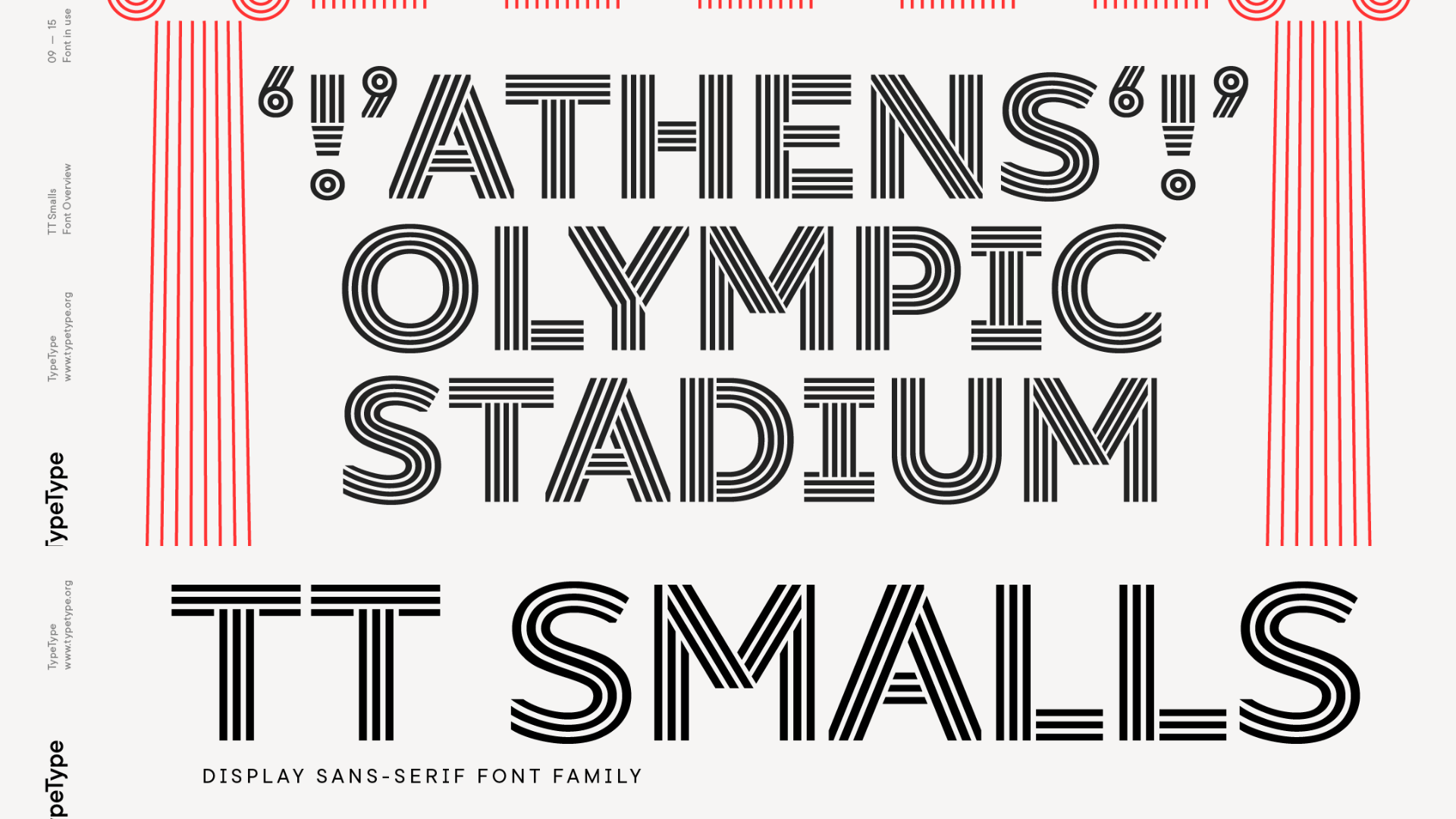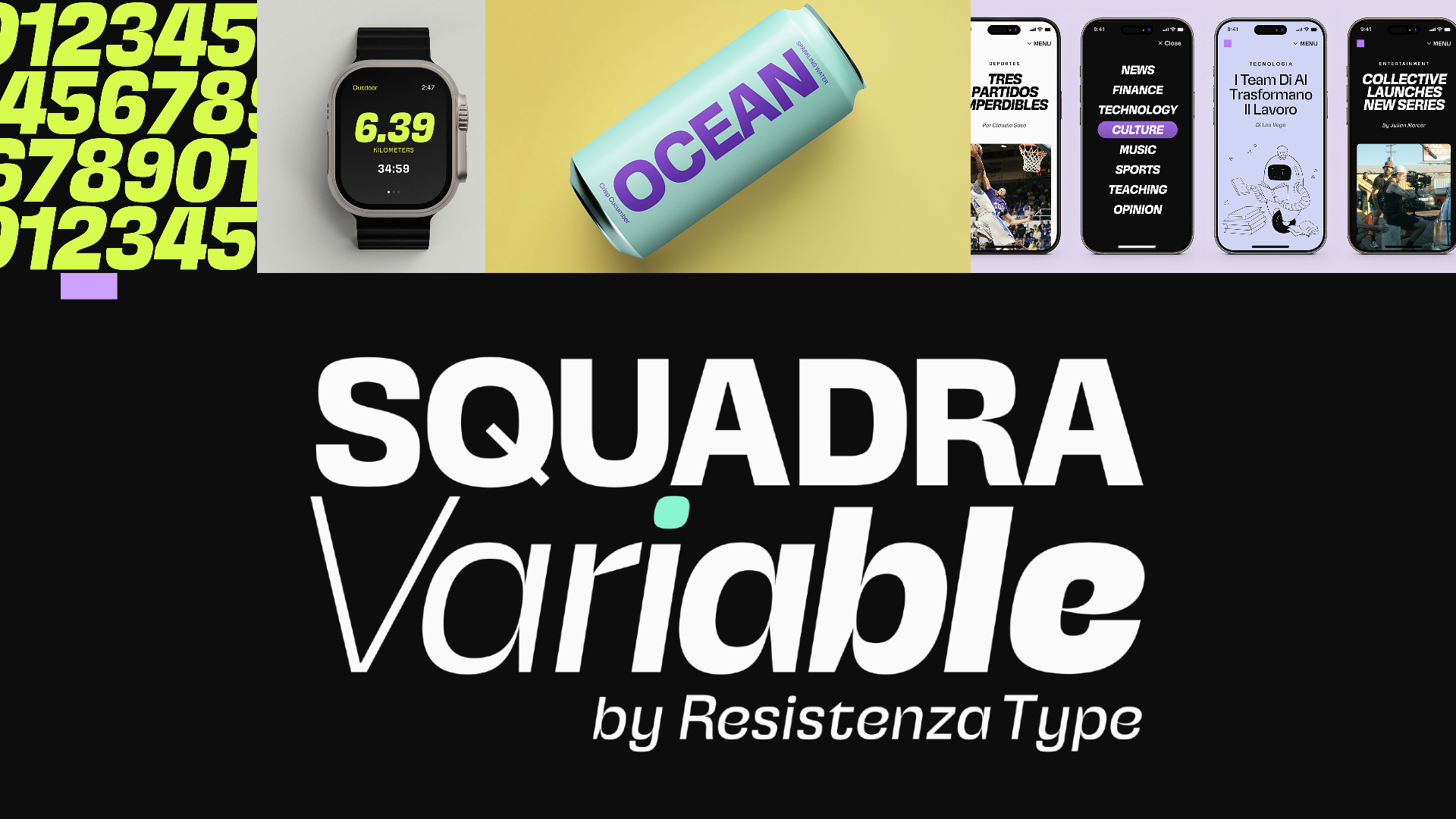
TT Smalls is now a decorative font that makes it easy to attract attention. Use it to design expressive headings, in the packaging design or to highlight text on a site. Be sure that the text set in TT Smalls will arouse the interest of the audience. Once TT Smalls was a neutral geometric sans serif, and the inline version was an alternative stylistic set. However, the TypeType collection of universal fonts is extensive, so we focused on creating a unique and expressive font and released an updated TT Smalls. The font contains only uppercase characters in the inline version, and glyph designs are based on a geometric sans serif. With an increase or decrease in weight, the number of strokes in the font goes up or down, respectively. 12 fonts for $99 $69.30 | |
Squadra Variable is a contemporary sans-serif typeface available as a single, flexible variable font. Inspired by the iconic Eurostile by Aldo Novarese and Alessandro Butti, it reinterprets geometric elegance and modernist spirit with a refined versatility tailored to today's typographic demands. With continuous weight and slant axes, Squadra Variable lets you seamlessly adjust from Thin to Black and from upright to an expressive italic angle — all within one font file. Its squared letterforms, clean lines, and carefully balanced proportions maintain clarity and sophistication across the entire design space. 2 fonts for $220 $110 | |